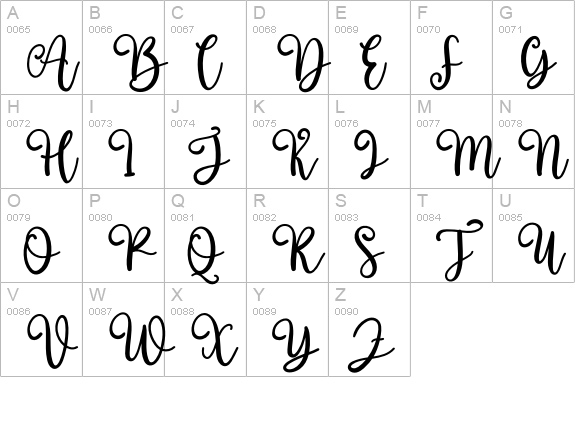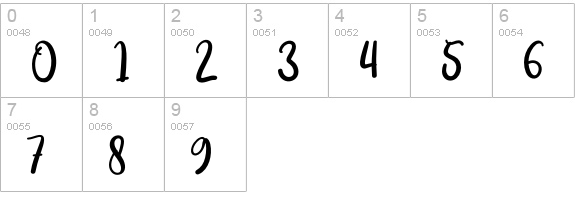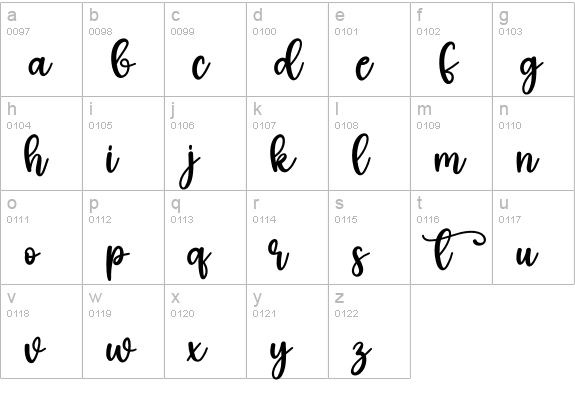
Introducing the charming and whimsical Christmas Gnome font, perfect for adding a touch of festive cheer to your holiday designs! This delightful font features playful and quirky characters inspired by the joyful spirit of Christmas. With its unique style and merry vibe, Christmas Gnome is sure to bring a smile to your audience's faces.